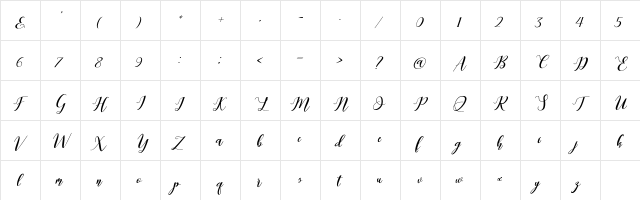
Latte Coffee script Regular
Design Context for Latte Coffee script Typeface
Latte Coffee script brings a calligraphic fluidity to the page — its connecting strokes and expressive curves give it an unmistakably human quality.
Font Pairing: Combine Latte Coffee script with a simple geometric sans for maximum contrast — the tension between flowing curves and clean structure is a classic typographic pairing.
Pro Tip: Pair Latte Coffee script with a clean sans-serif for supporting text. The contrast between fluid script and geometric structure creates an elegant typographic hierarchy.